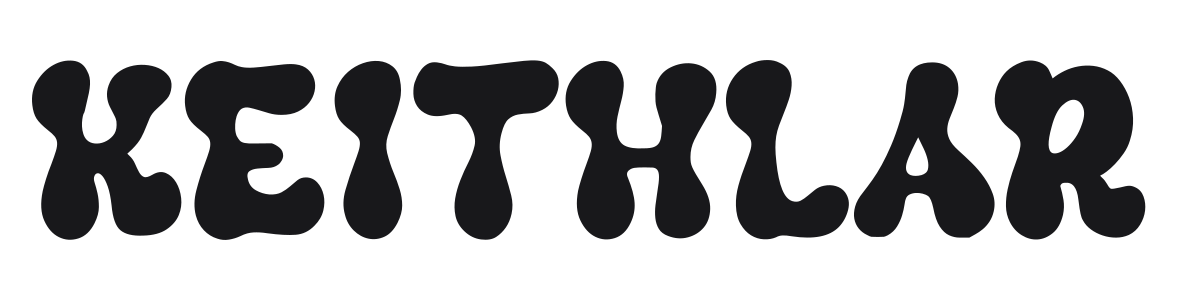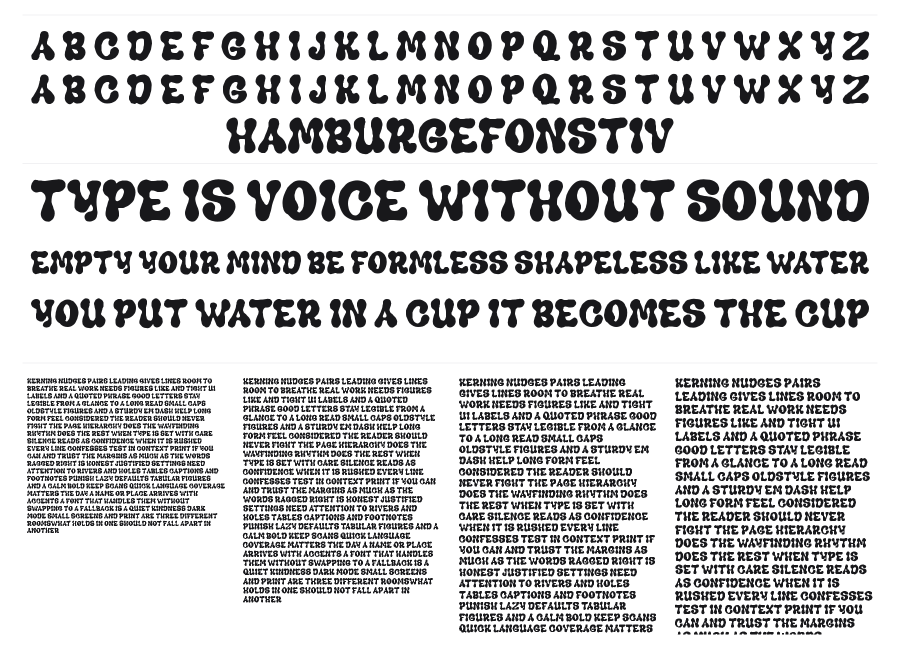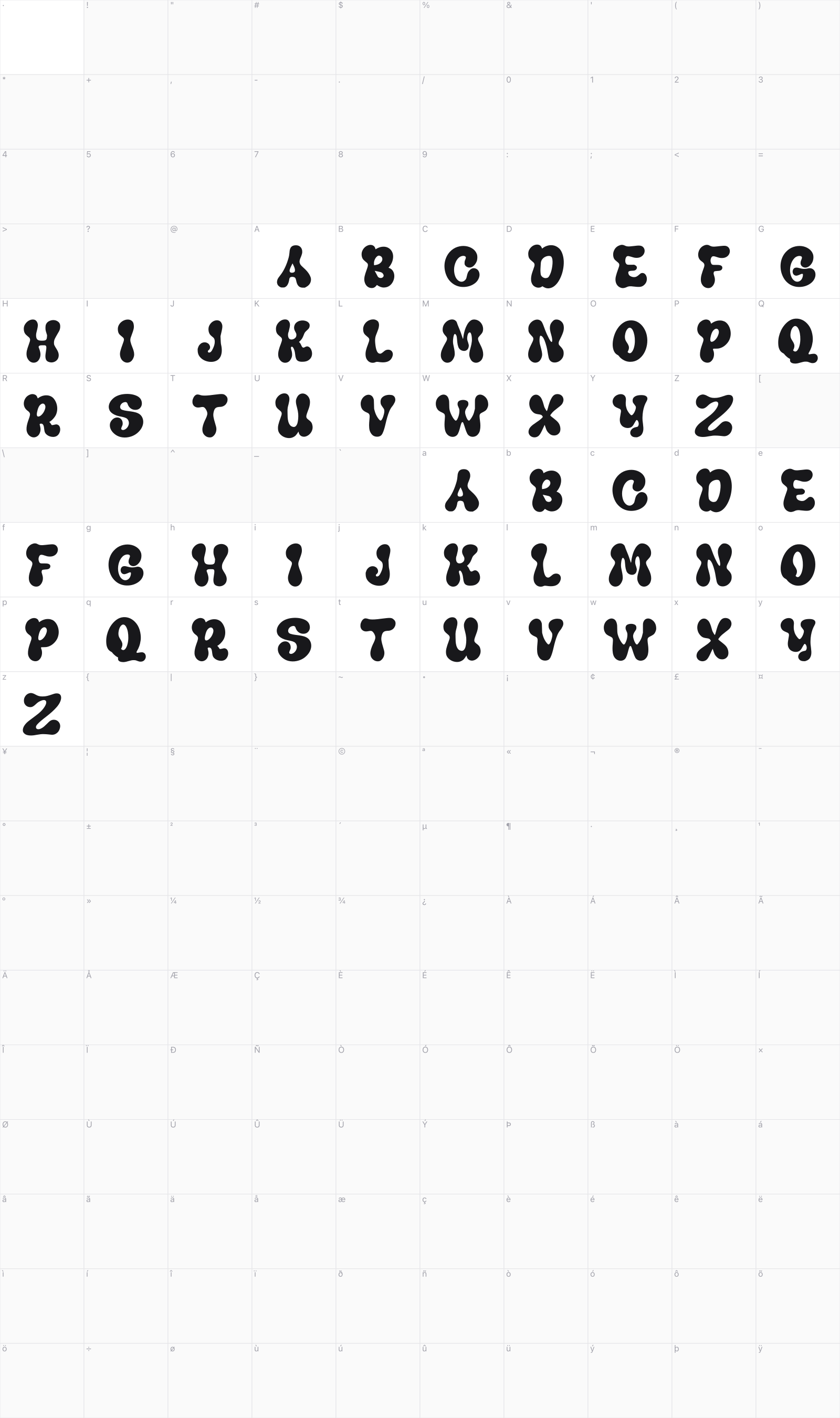
Keithlar
Keithlar is a heavy retro display font soaked in 1960s–70s groovy culture, with inflated balloon-like strokes and deeply rounded forms. Every character swells to near-bursting, with tight counters and zero hard edges. It reads loud, playful, and unambiguously vintage.